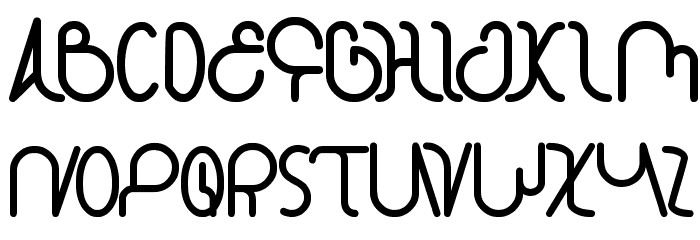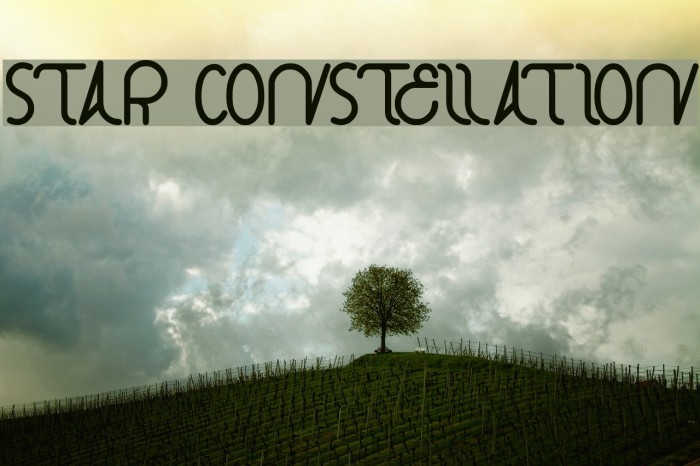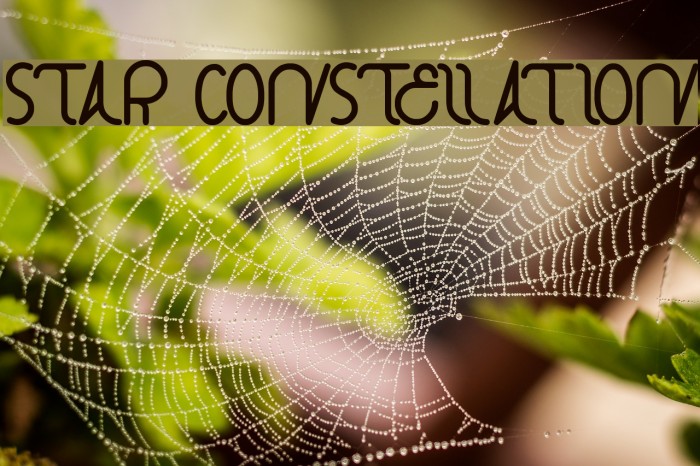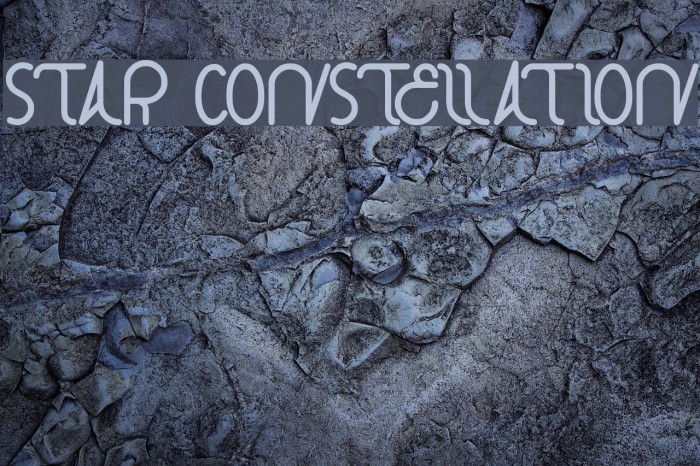
star constellation Font
This font features a unique and modern design with a futuristic flair. The characters are crafted with smooth, continuous lines that create a sense of fluidity and motion. Each letter is distinct, yet they all share a cohesive style that makes the font stand out. The uppercase and lowercase letters maintain a consistent height, contributing to a balanced appearance. The numbers and special characters are designed to match the overall aesthetic, ensuring uniformity across all text. This font is ideal for projects that require a contemporary and innovative look.
A modern, fluid font with a futuristic design and cohesive style.
- Proposed Projects: Ideal for branding, logos, sci-fi themed projects, and modern digital interfaces.
- Use Case: Logos, Headlines, Branding